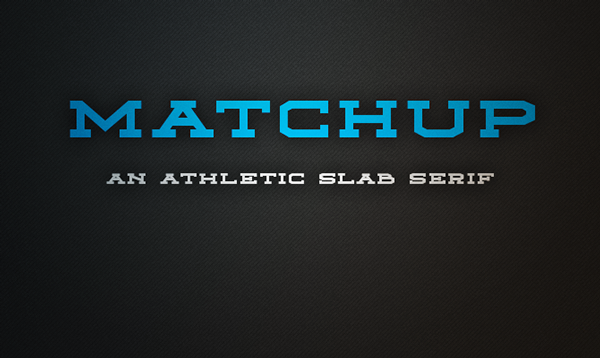
Free Matchup font
Introducing you to the absolutely beautiful free matchup font. This free font file was found from the amazing source called The Hungry JPEG. Easily amaze your audience with this cool font and make your graphic designs pop up from the crowd.